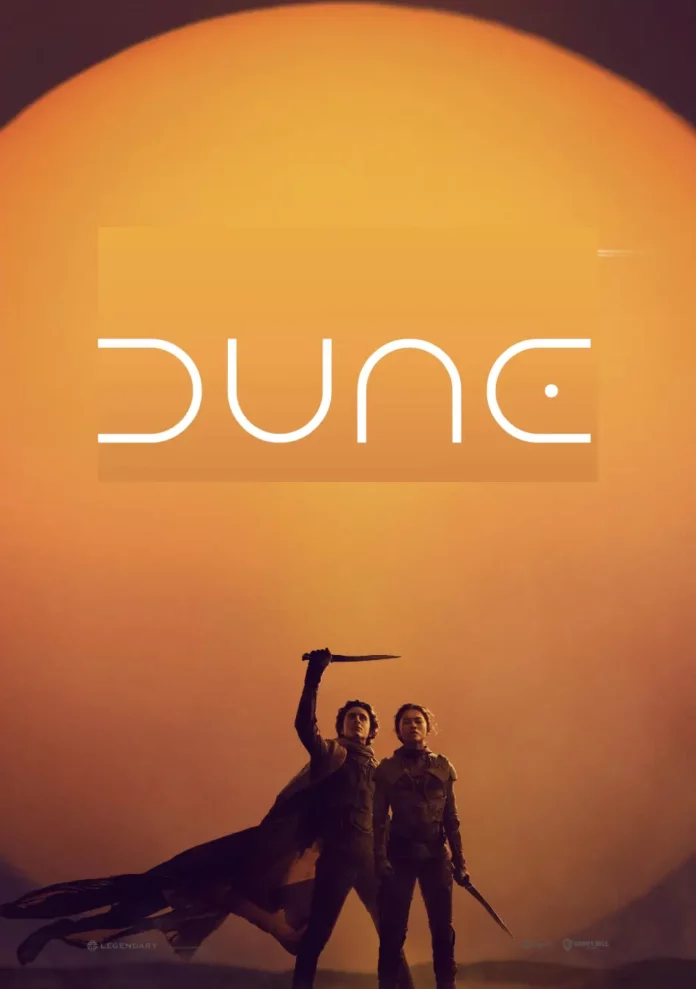
Dune: Part One is a science fiction film directed by Denis Villeneuve and released in 2021. It stars Timothée Chalamet as Paul Atreides. The main plot follows the conflict between the rival houses of Atreides and Harkonnen over the control of Dune, the involvement of a mysterious prophecy, and a secret order of women called the Bene Gesserit.
The movie is the first part of a planned trilogy and covers the novel’s first half. The film was a critical and commercial success and is praised for its cinematography, direction, acting, and faithful adaptation of the source material. Now, let’s talk about Dune Font.
About The Font
Replica: The new Dune movie used a custom design for its logo. But it has been replicated as the Dune Rise font by Jesta Designs. It is free for personal and commercial use.
Similar: The title of the Dune movie from 1984 probably uses the Albertus Light font, which Berthold Wolpe made. The font has a “U” that is changed from the original. You can download this font from our link now.
Not exactly. The original lettering was custom drawn or is not publicly licensed, so the fonts here are close recreations. Dune-Rise-font is the nearest match we have found.